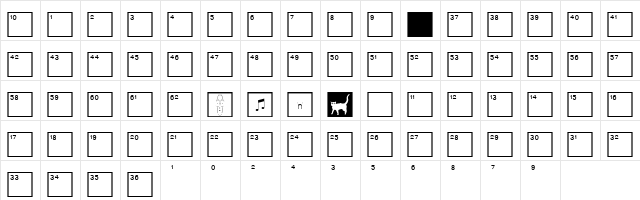
Complete CrosswordLowNumbers Regular glyph index. Displaying only characters natively supported by CrosswordLowNumbers Regular font.
CrosswordLowNumbers is a composed and adaptable typeface that performs quietly and consistently across a wide range of design contexts.